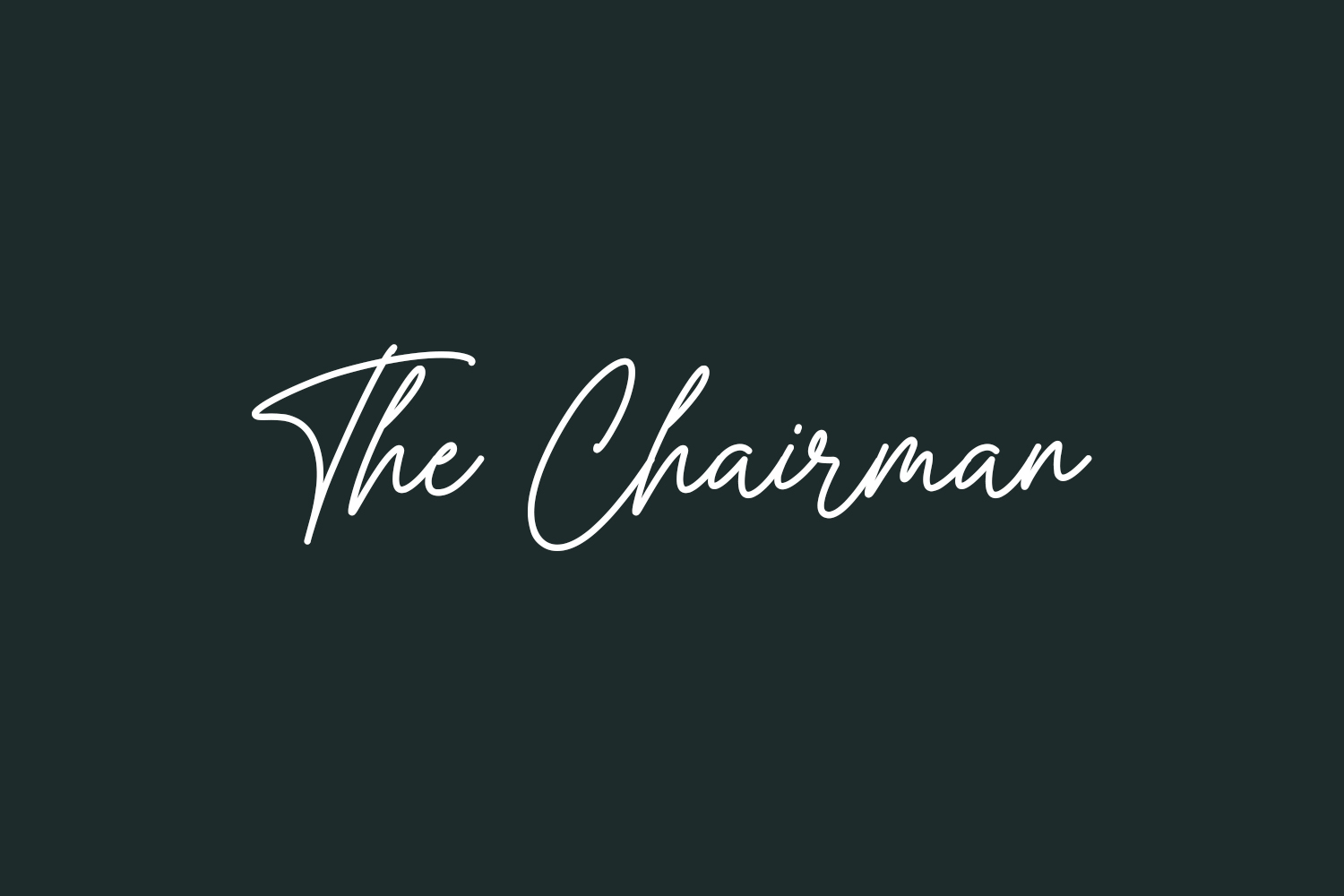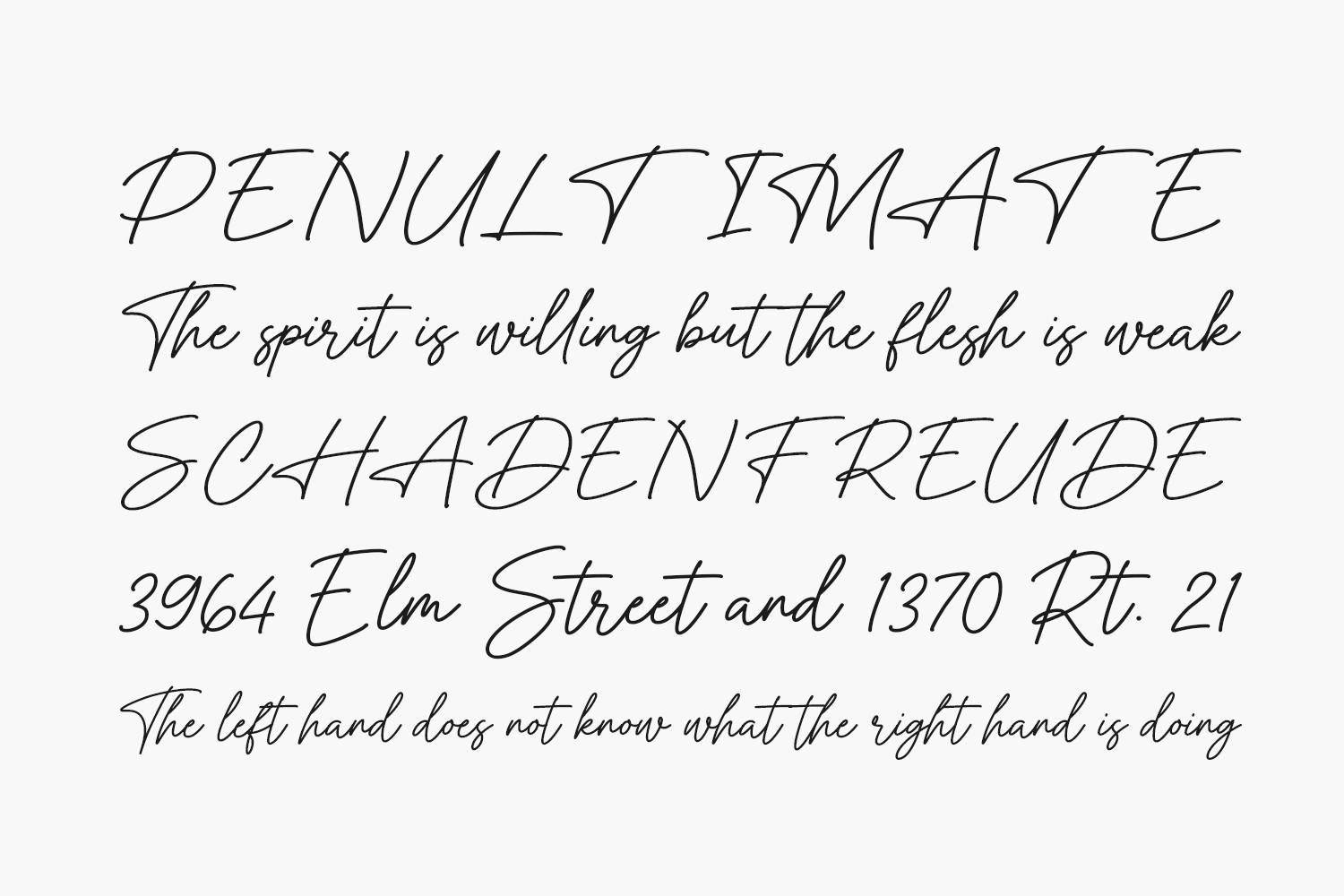
The Chairman Free Font offers a graceful handwritten font, characterized by its elegant charm, ideal for a variety of projects. From wedding invitations to thank you cards, quotes to logos, this font adds a touch of sophistication to any design. Embrace its timeless style and infuse your creations with a distinct allure that captivates. Let The Chairman elevate your projects to new heights of elegance and creativity. Download the font for free if you need it for personal use or purchase the full version for commercial use.